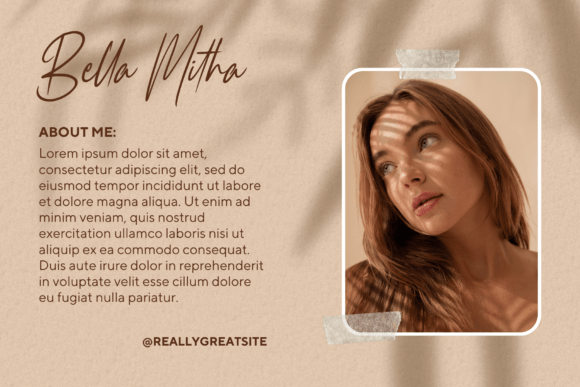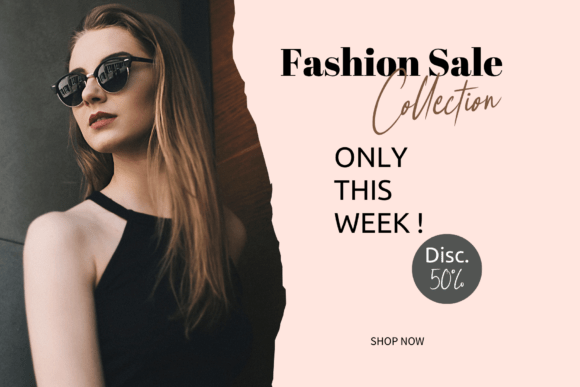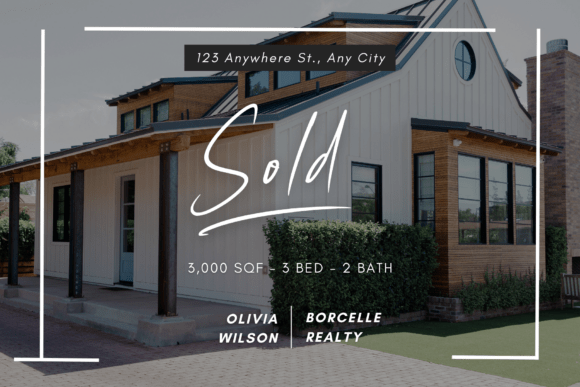
I still remember the countless hours I spent searching for the perfect font for a client’s wedding invitation project. The design brief was simple: elegant, sophisticated, and personal. Sounds easy, right? But, as designers and creative hobbyists know, finding that one font that checks all the boxes can be a daunting task.
I scrolled through font after font, but nothing seemed quite right. That was until I stumbled upon Dellution Font. Its smooth strokes and natural handwritten style immediately caught my eye. I knew I had found the one.
An Honest Review of Dellution Font
- ✨ Elegant and sophisticated: Dellution brings a touch of class to any design.
- ✅ Smooth strokes: The font’s fluid lines make it perfect for logos, invitations, and other creative projects.
- 💫 Versatile: From minimalist logos to luxurious wedding invitations, Dellution shines in various design applications.
- 👍 Effortless yet refined: This font adds a personal and stylish feel to your work without looking too try-hard.
While Dellution is an amazing font, it’s not perfect. Here are a few things to keep in mind:
- ⚠️ Limited use in body text: Due to its elegant and cursive nature, Dellution might not be the best choice for long-form body text.
- 🤔 Requires attention to spacing: As with any script font, you may need to adjust the spacing to ensure it looks perfect in your design.
The Story Behind Dellution Font
Dellution was designed with the intention of creating a font that exudes elegance and sophistication. The designer aimed to craft a font that feels both effortless and refined, perfect for those looking to add a personal touch to their designs. While the exact story behind Dellution might be shrouded in mystery, its beauty and versatility are undeniable.
Q: What makes Dellution Font unique?
A: Dellution’s smooth strokes and natural handwritten style make it stand out as a modern and elegant signature font.
Q: Is Dellution suitable for body text?
A: While Dellution is beautiful, it’s best used for titles, headings, or short texts. For long-form body text, a more traditional font might be more suitable.